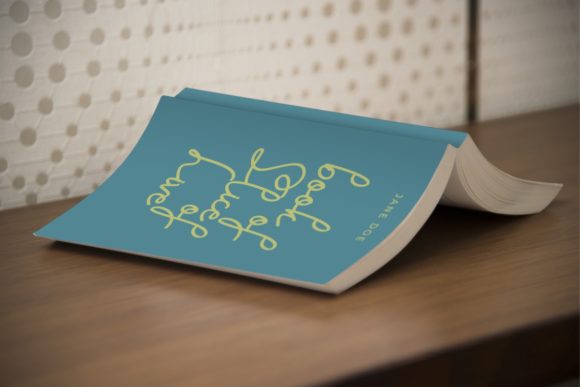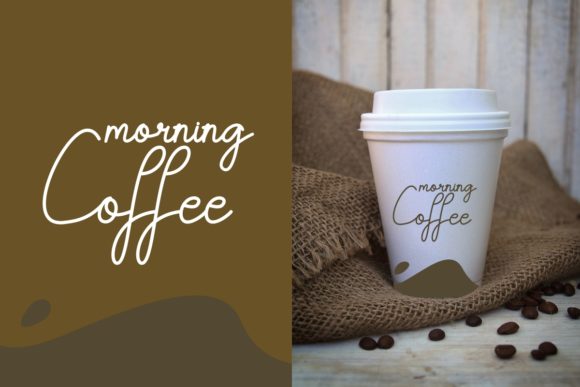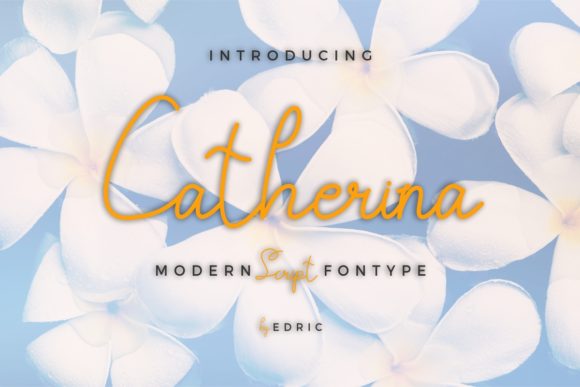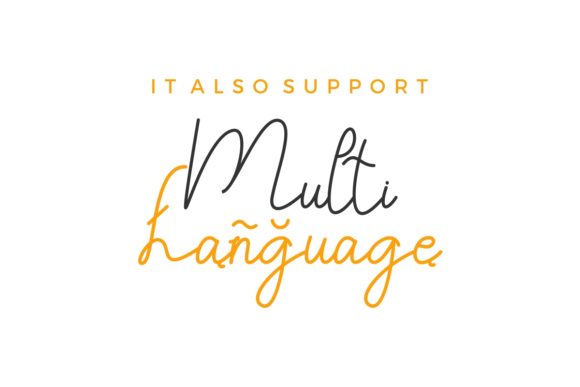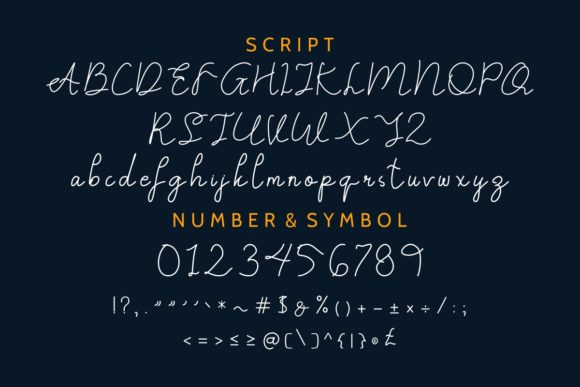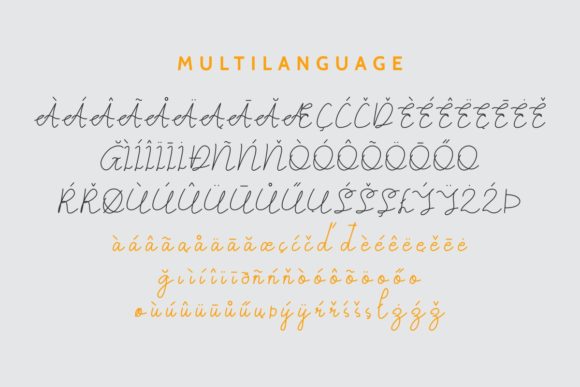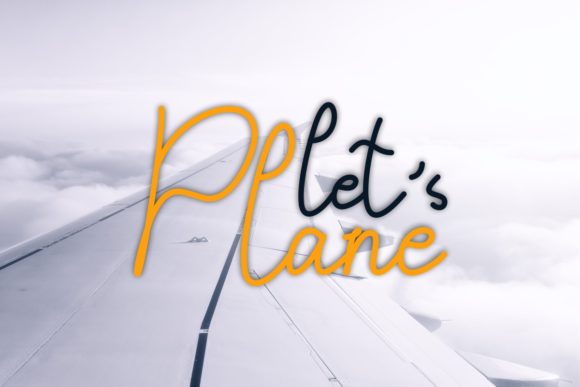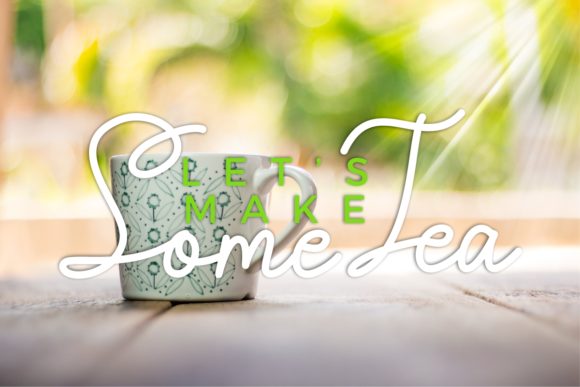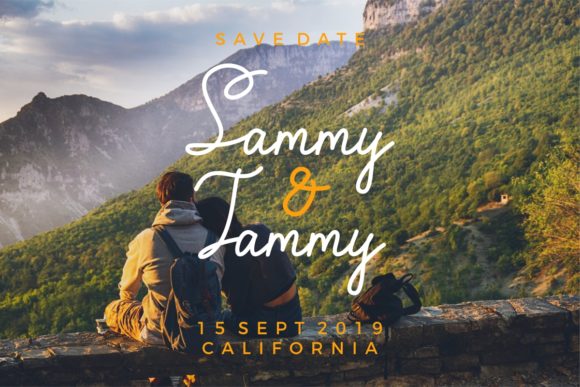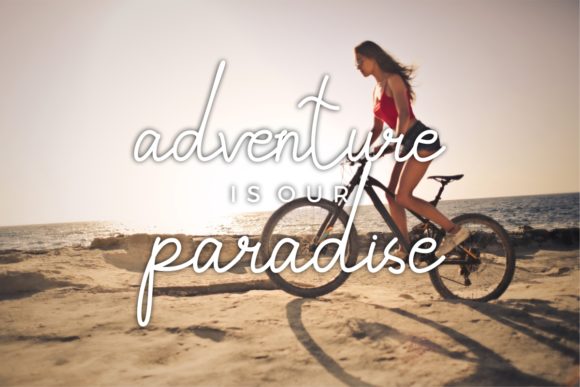
Catherina Font
About Catherina Font
Catherina is a bold and stunning script that will add a cool feel to your next design idea. Get inspired by its modern vibe.